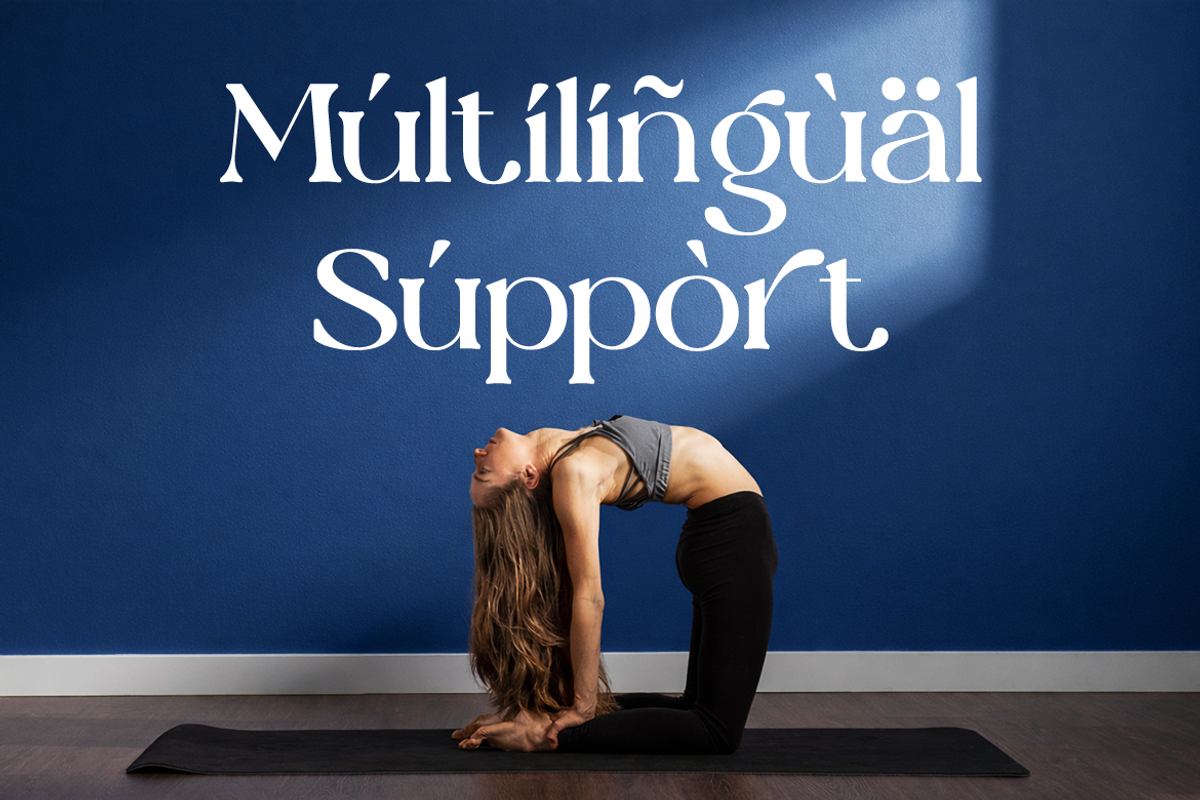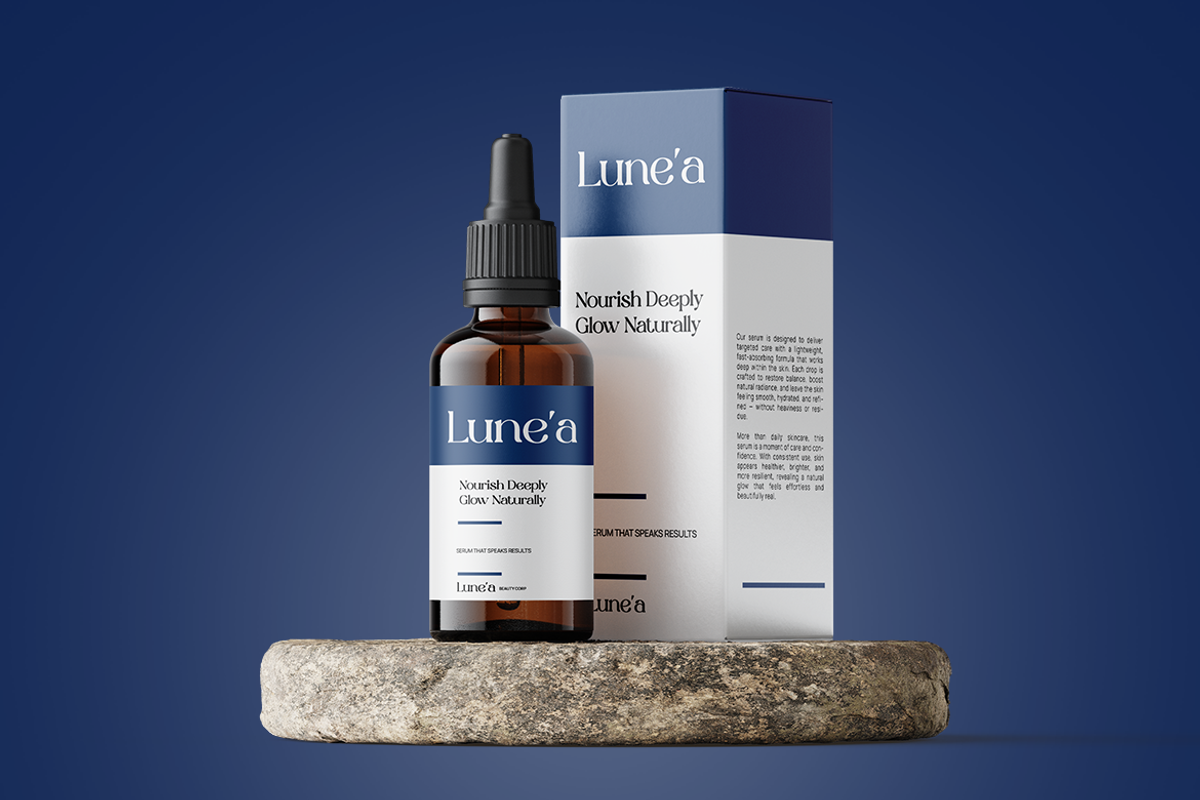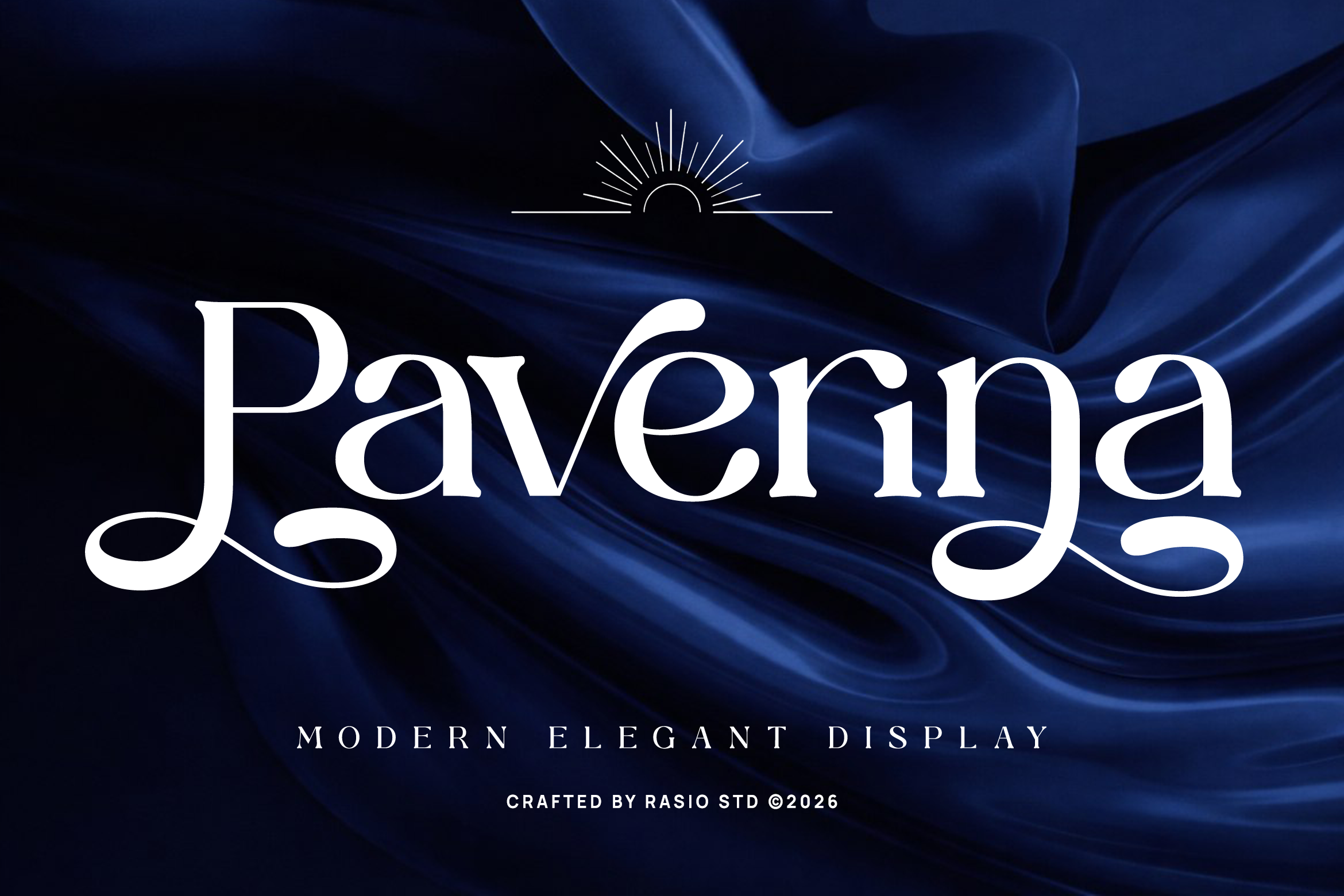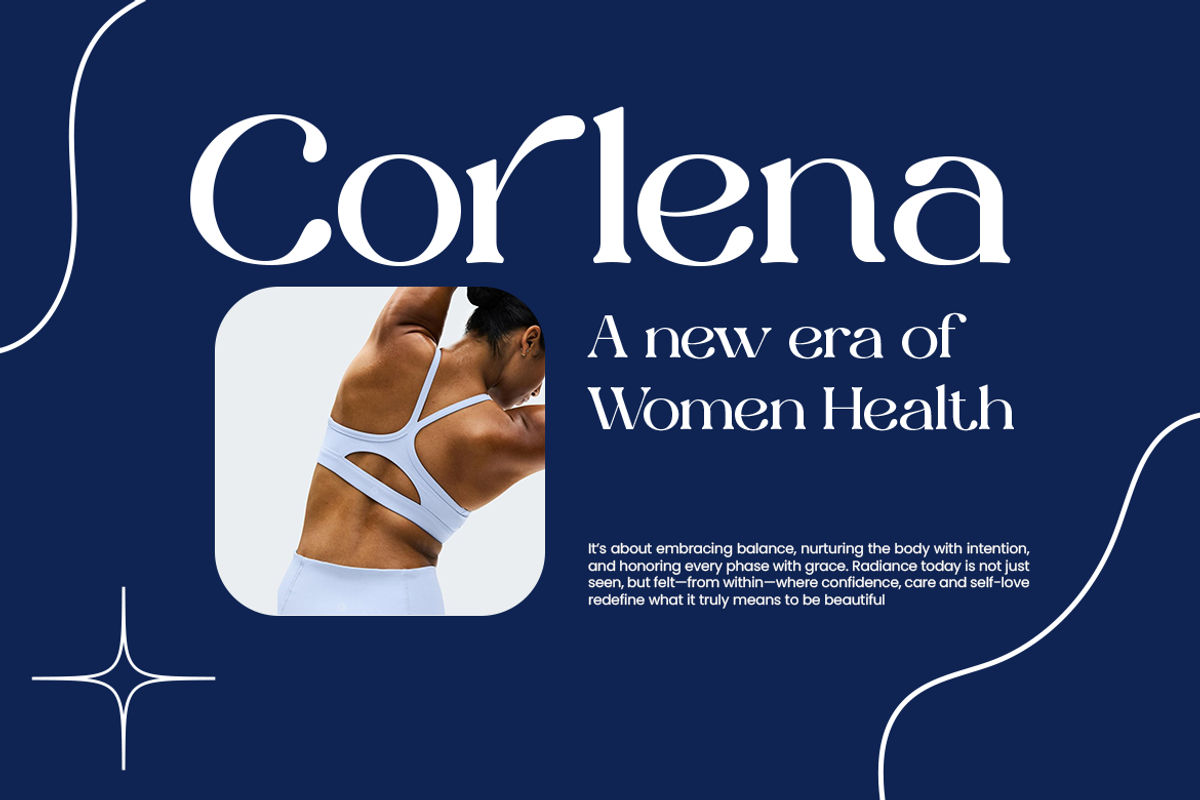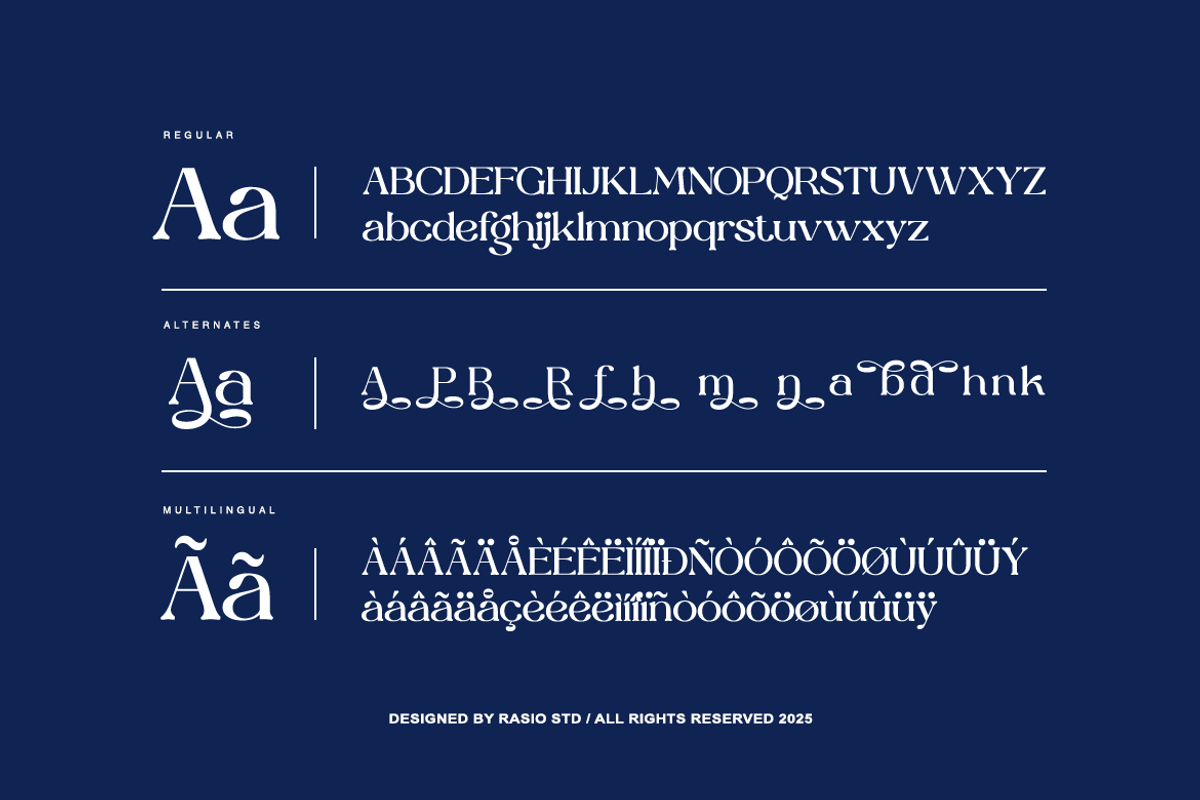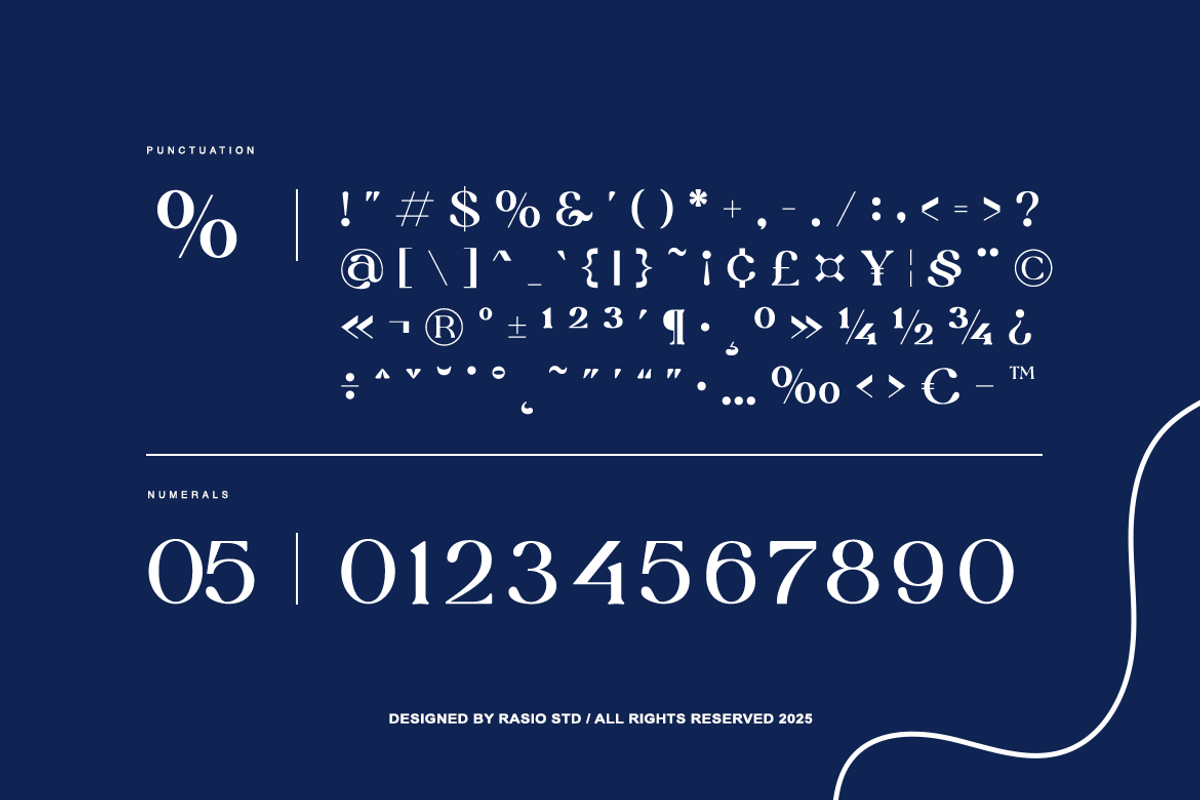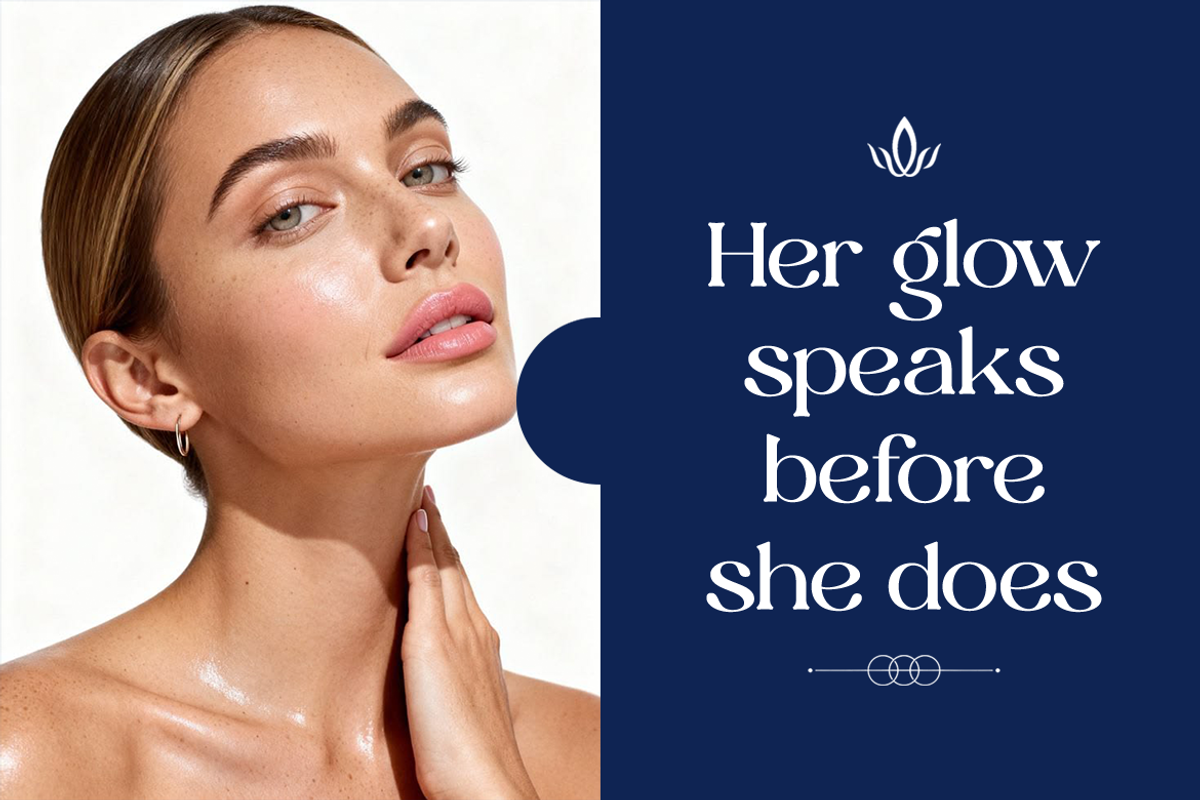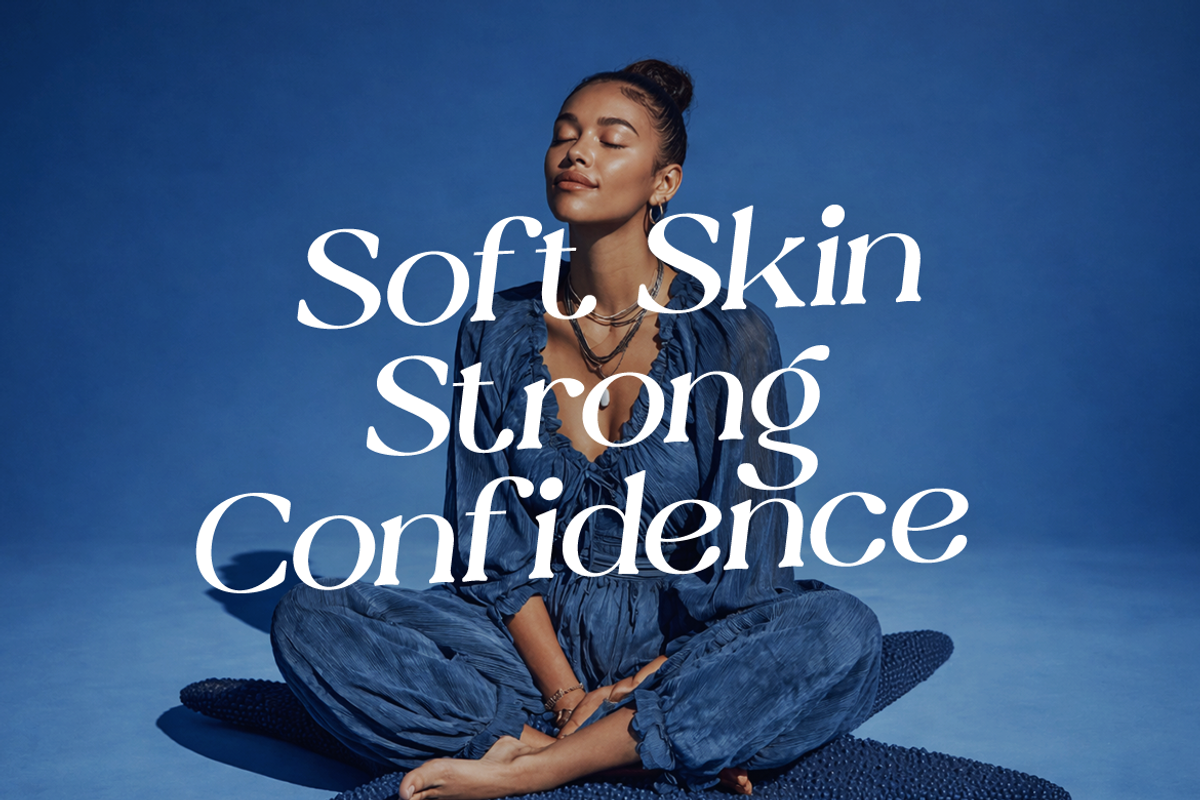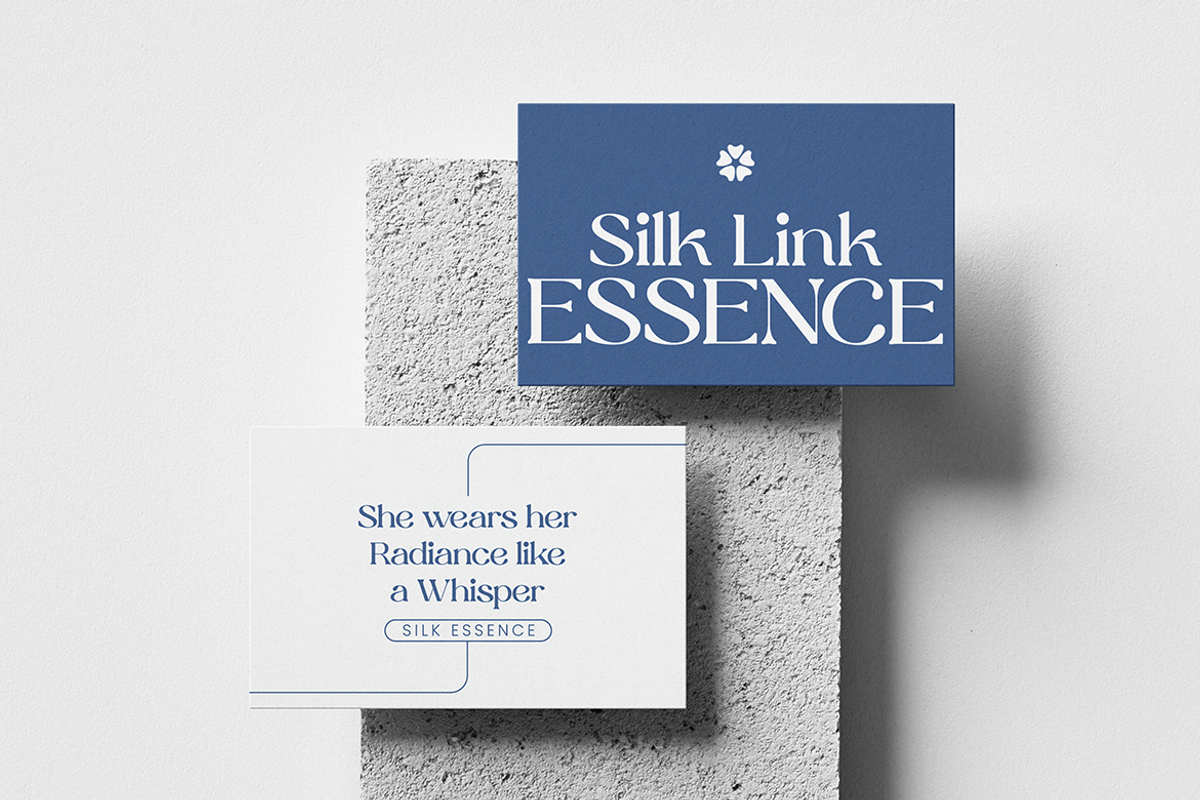
Paverina Modern Elegant Display Font
Paverina is a modern elegant serif font featuring refined curves, high-contrast strokes, and distinctive decorative alternates. The typeface includes uppercase, lowercase, numerals, punctuation, stylistic alternates, and multilingual support, allowing versatile typographic expression. Its graceful letterforms combine classic serif structure with contemporary styling, making it visually sophisticated and expressive.
This font is highly relevant for projects that emphasize elegance, beauty, and premium aesthetics. It works perfectly for fashion branding, cosmetic packaging, editorial layouts, luxury product design, and high-end marketing materials. Its refined character makes it suitable for social media campaigns, magazine covers, wedding visuals, and branding systems that aim to communicate sophistication and style.
- Elegant serif construction with high contrast strokes and refined curves
- Decorative swashes and stylish alternates for expressive typography
- Graceful terminals with smooth, flowing details for a luxurious feel
- Balanced proportions combining classic serif roots with modern aesthetics
- Subtle ornamental touches enhancing visual character without overpowering
- Luxury brand identity and elegant logo design with a refined visual tone
- Fashion editorials, magazine layouts, and high-end publications
- Beauty, skincare, and premium product packaging design
- Wedding invitations, event stationery, and romantic visual themes
- Social media content and marketing materials with a sophisticated aesthetic